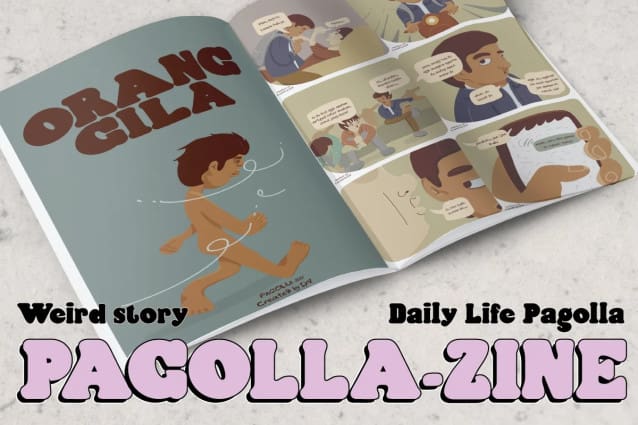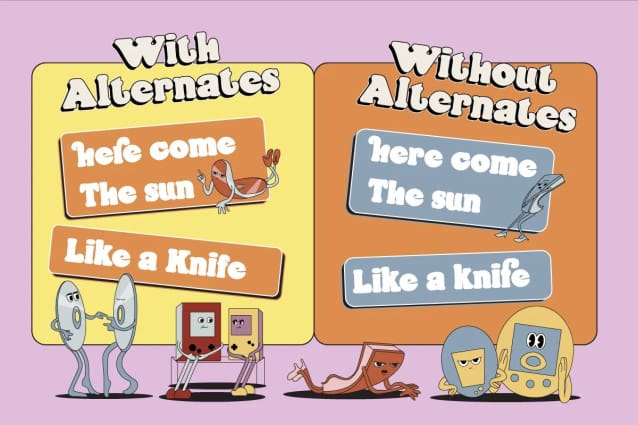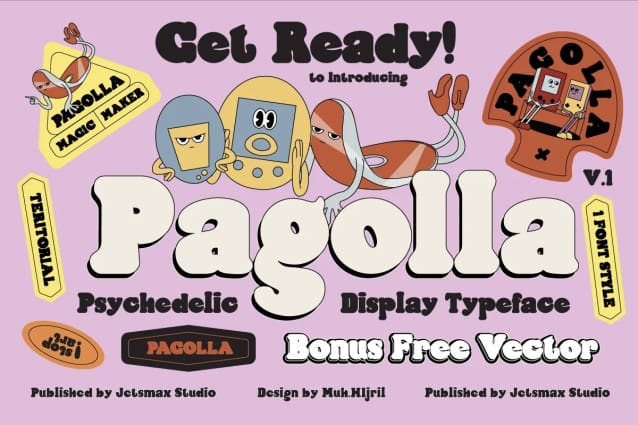
Pagolla Display Font
Pagolla Display Font is an ultra-bold serif typeface with a strong retro touch. PagollaDisplay is best use as heading and logotype. This font will surely match for brand with outgoing and bold personality.